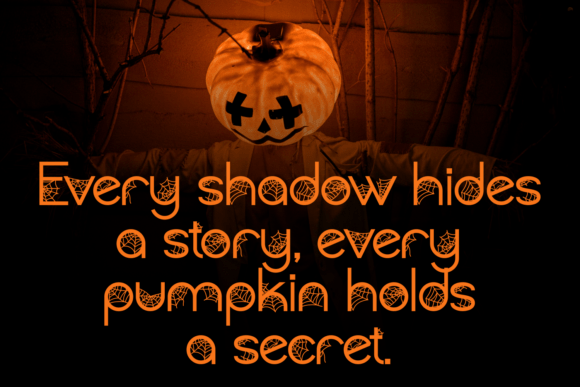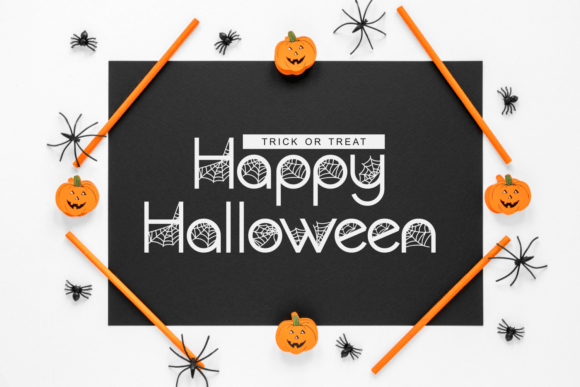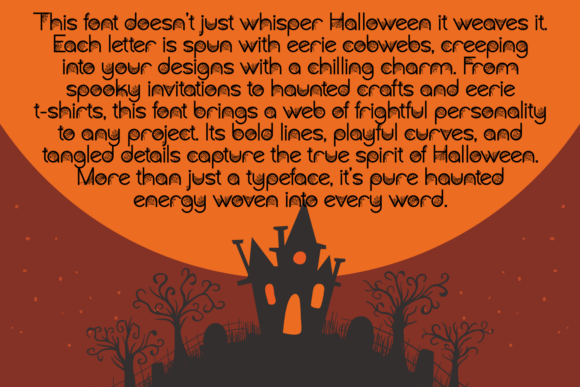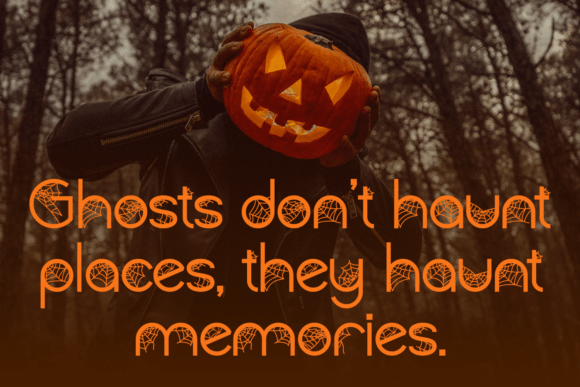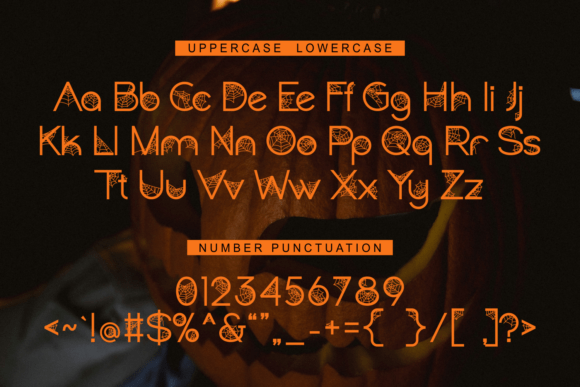
Cobwebs Nocturne Font: The Perfect Spooky Addition to Your Design Projects
Are you looking for a font that can add a touch of eeriness and mystery to your design projects? Look no further than the Cobwebs Nocturne Font. This chilling decorative font is the perfect addition to any project, seamlessly blending eerie motifs with a modern, geometric structure.
Unique Design Elements
The defining feature of the Cobwebs Nocturne Font is the delicate, intricate cobweb pattern meticulously woven into the circular and semi-circular voids of each letter. This unique design element, coupled with its monolinear weight and tall, condensed letterforms, gives it an uncanny mix of elegance and a creepy, unsettling tone.
The stark contrast between the hollow, negative space and the sharp, straight lines of the font’s frame is what sets it apart from other fonts. The cobweb pattern adds a level of intricacy and detail that is sure to capture the attention of your audience.
Perfect for Spooky and Mysterious Projects
While the Cobwebs Nocturne Font may seem like the perfect choice for Halloween-themed projects, its clever design makes it a powerful choice for a wide range of applications. Crime novel covers, mystery-themed branding, and any project that needs a touch of mysterious and dramatic flair are just a few examples of where this font can be used.
The font’s distinctive charm is sure to add a level of sophistication and elegance to any project, while also conveying a sense of eeriness and unease. Whether you’re looking to create a spooky atmosphere or simply add a touch of mystery to your design, the Cobwebs Nocturne Font is the perfect choice.
Design and Crafting Applications
The Cobwebs Nocturne Font is a versatile font that can be used in a wide range of design and crafting applications. Here are a few examples:
• Graphic Design: Use the Cobwebs Nocturne Font to add a touch of eeriness to your graphic design projects, such as brochures, posters, and flyers.
• Digital Crafting: Add a touch of mystery to your digital crafting projects, such as printable art, party decorations, and gift tags.
• Paper Crafting: Use the Cobwebs Nocturne Font to create spooky and mysterious paper crafting projects, such as cards, invitations, and scrapbook pages.
• Web Design: Add a touch of elegance and eeriness to your web design projects, such as website headers, blog posts, and social media graphics.
Tips for Using the Cobwebs Nocturne Font
Here are a few tips for using the Cobwebs Nocturne Font in your design projects:
• Use it sparingly: The Cobwebs Nocturne Font is a bold and eye-catching font, so use it sparingly to avoid overwhelming your design.
• Pair it with a neutral font: Pair the Cobwebs Nocturne Font with a neutral font to create a striking contrast and add visual interest to your design.
• Experiment with colors: Experiment with different colors and textures to add depth and interest to your design.
The Cobwebs Nocturne Font is a unique and versatile font that is perfect for adding a touch of eeriness and mystery to your design projects. Its intricate cobweb pattern, monolinear weight, and tall, condensed letterforms make it a powerful choice for a wide range of applications.
Whether you’re a designer, crafter, or simply someone who loves spooky and mysterious designs, the Cobwebs Nocturne Font is sure to captivate your audience and add a level of sophistication and elegance to your projects.